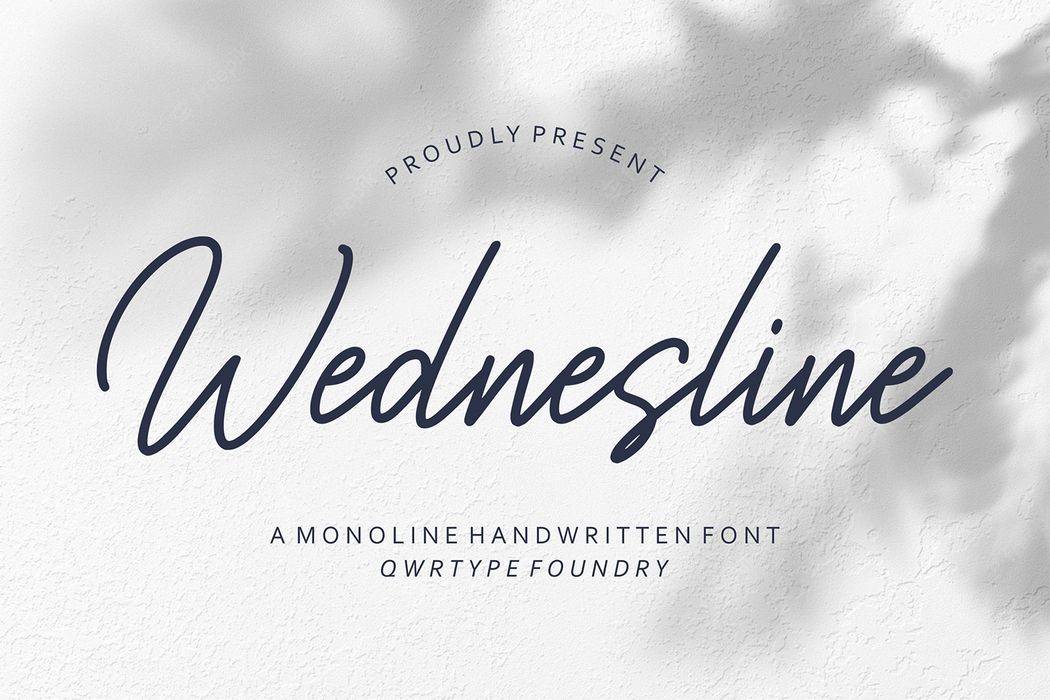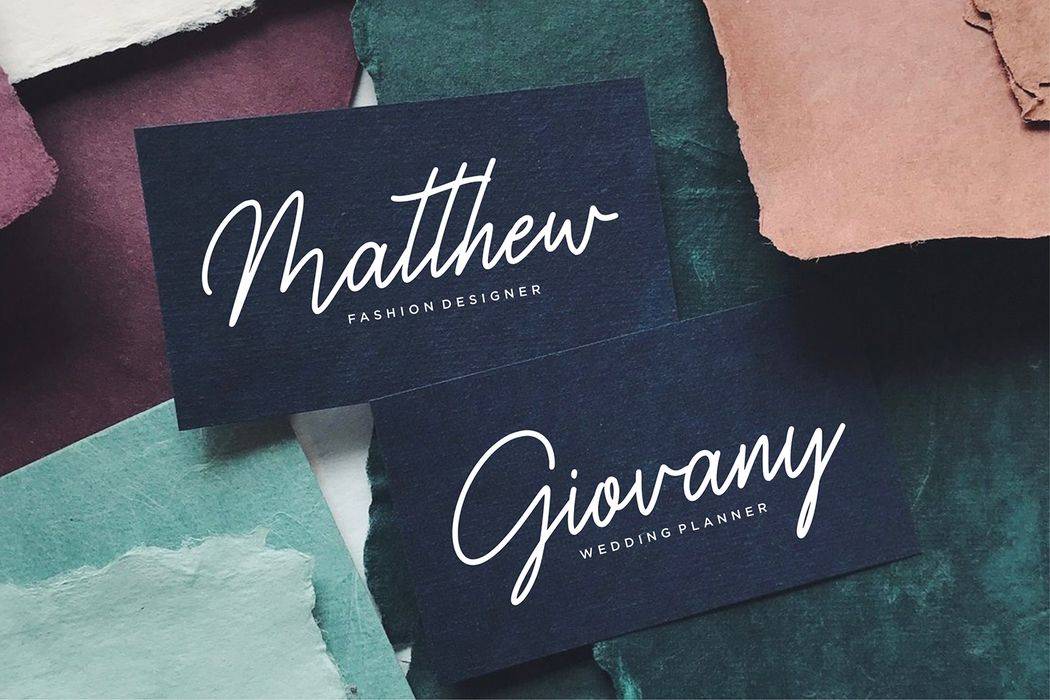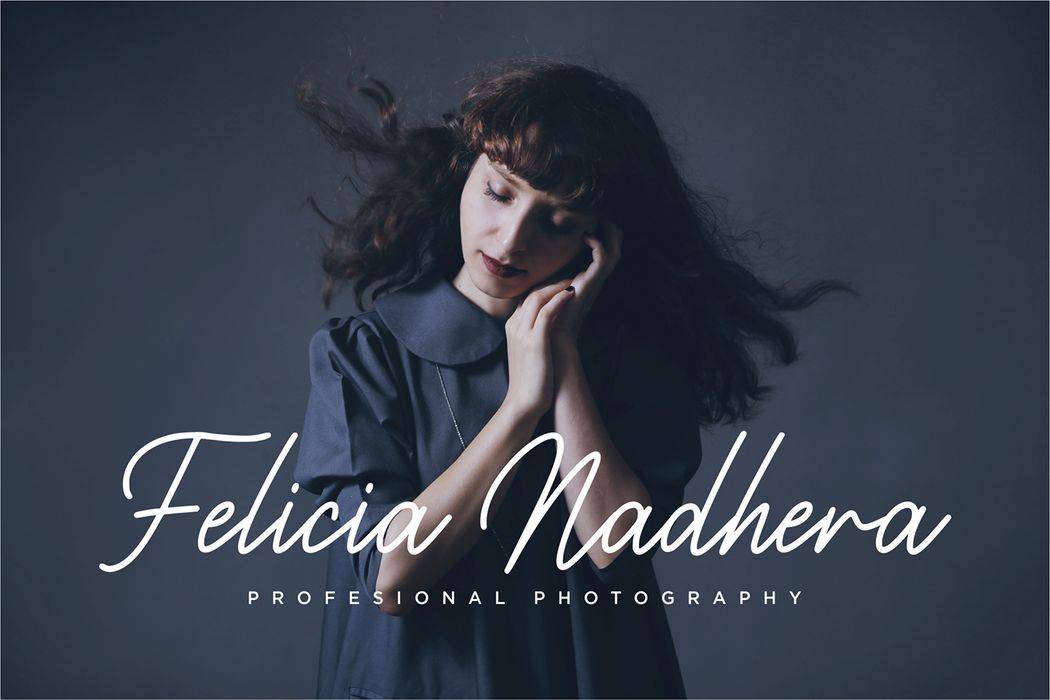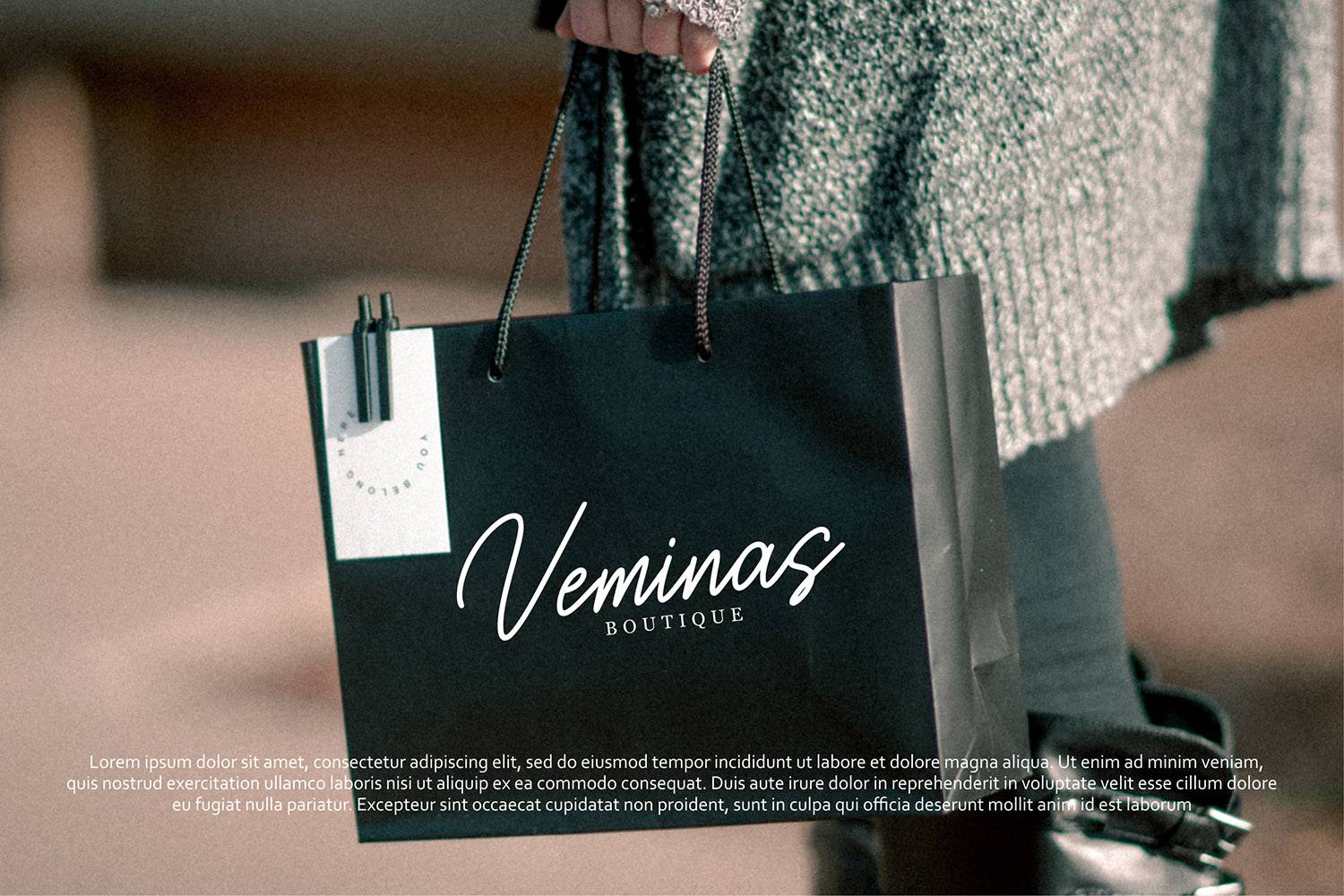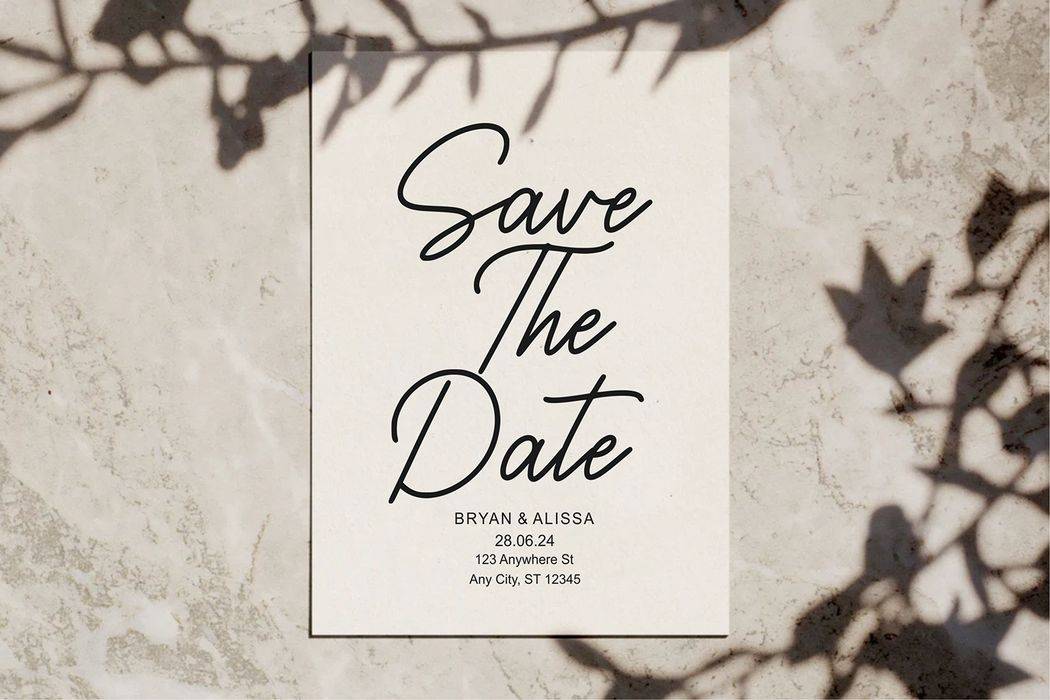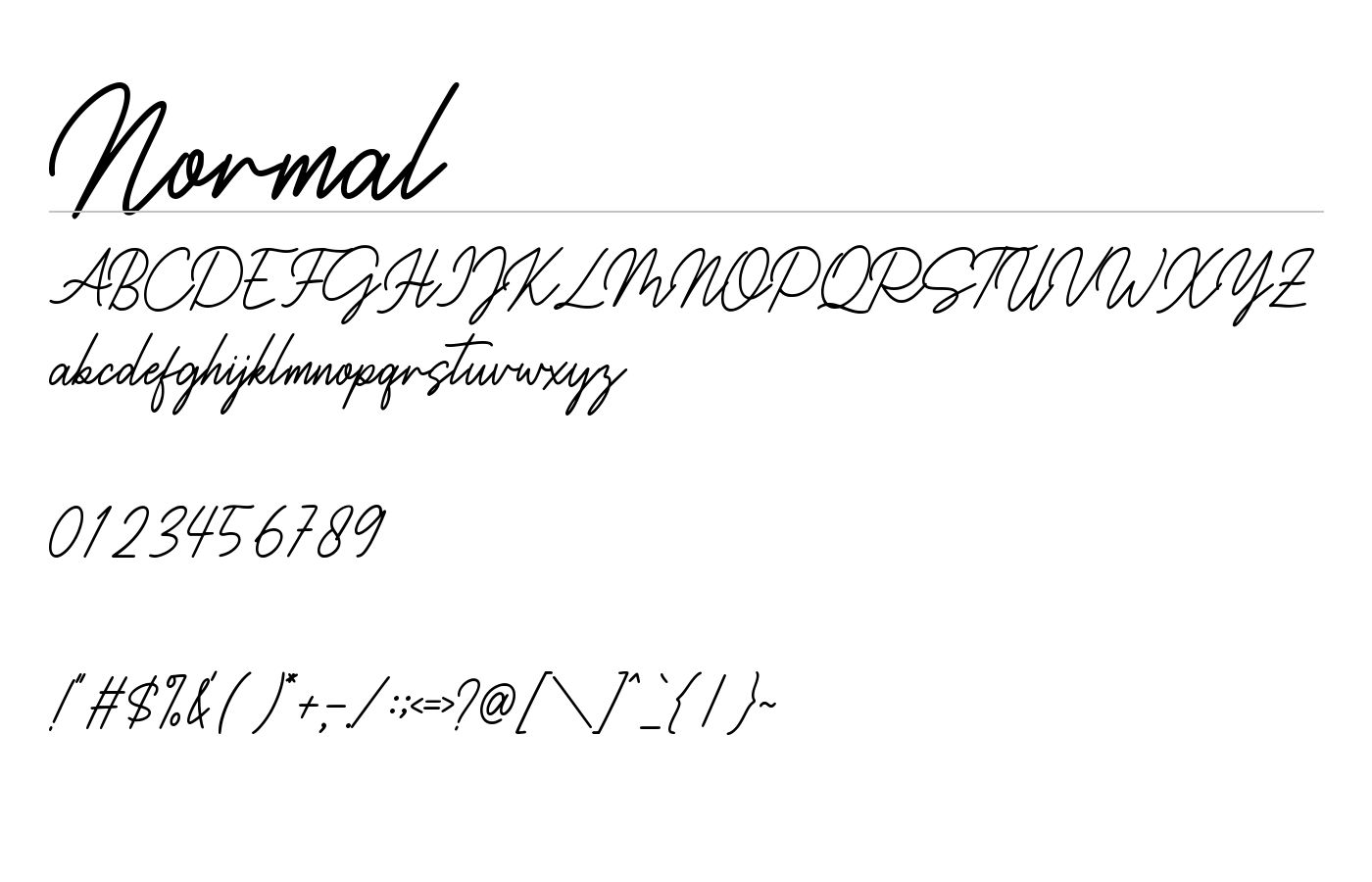
Wednesline is an elegant script font characterized by its smooth, flowing strokes and delicate appearance. Its slender weight and tall x-height give it a graceful, handwritten style that works well for invitations, branding, and any design seeking a personal, sophisticated touch. This font shines in projects that need a refined yet approachable look, such as luxury packaging, stylish logos, and elegant editorial layouts.
Wednesline Font